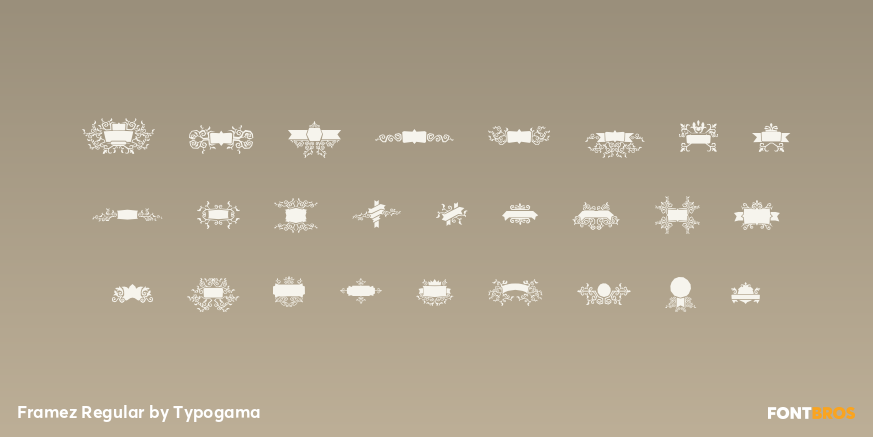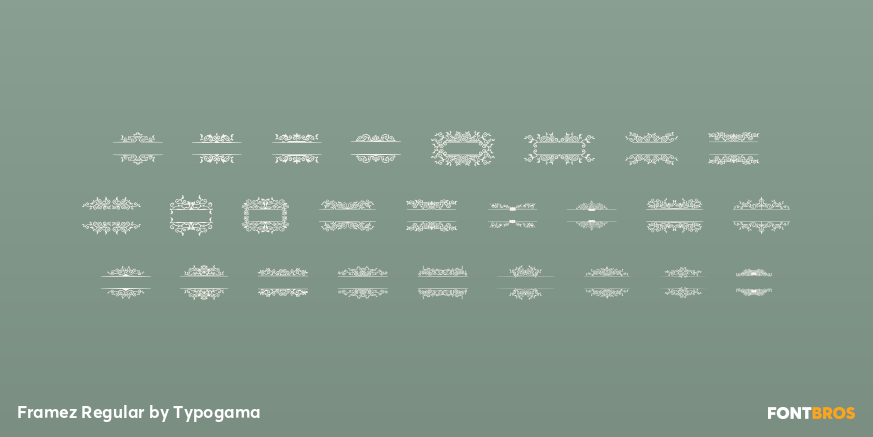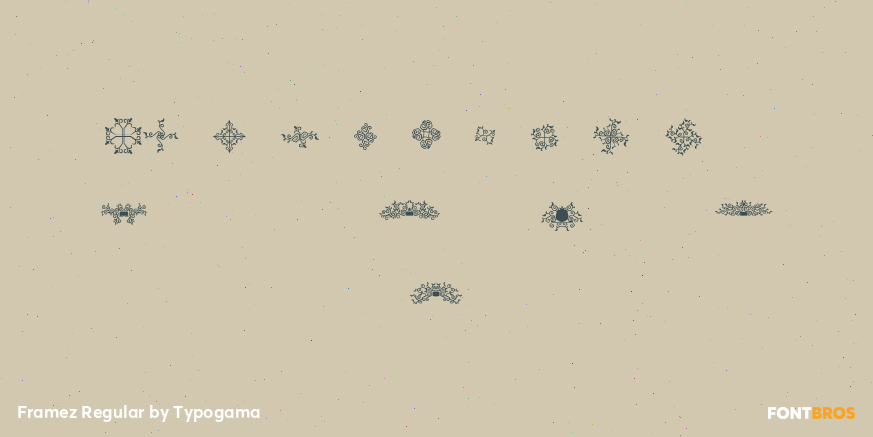
Framez Regular
The Framez dingbat font is a collection of frames and borders that can be used for logos, titles or any other display function. Inspired by the traditional frames of letterpress printers, these designs were conceived as part of the Jackazz family but can also be mixed with any other typefaces.